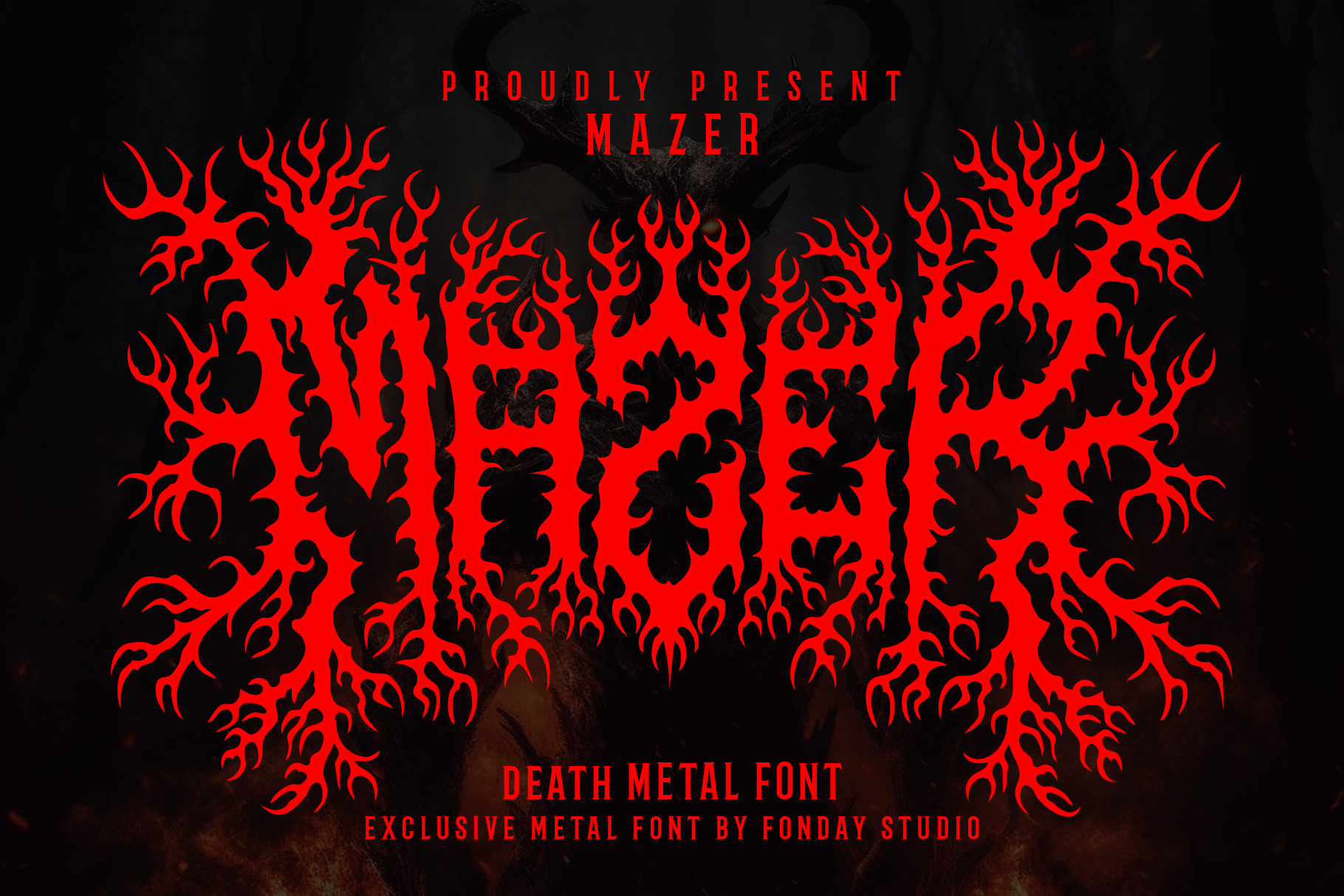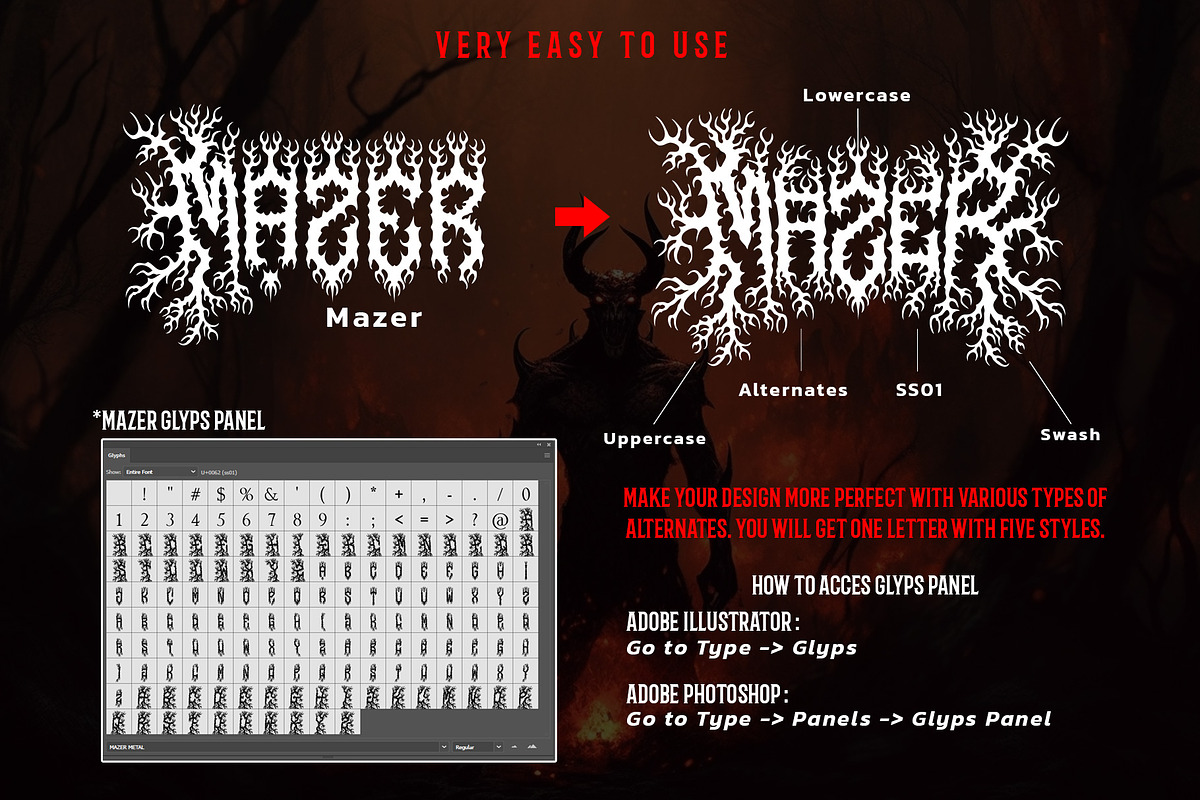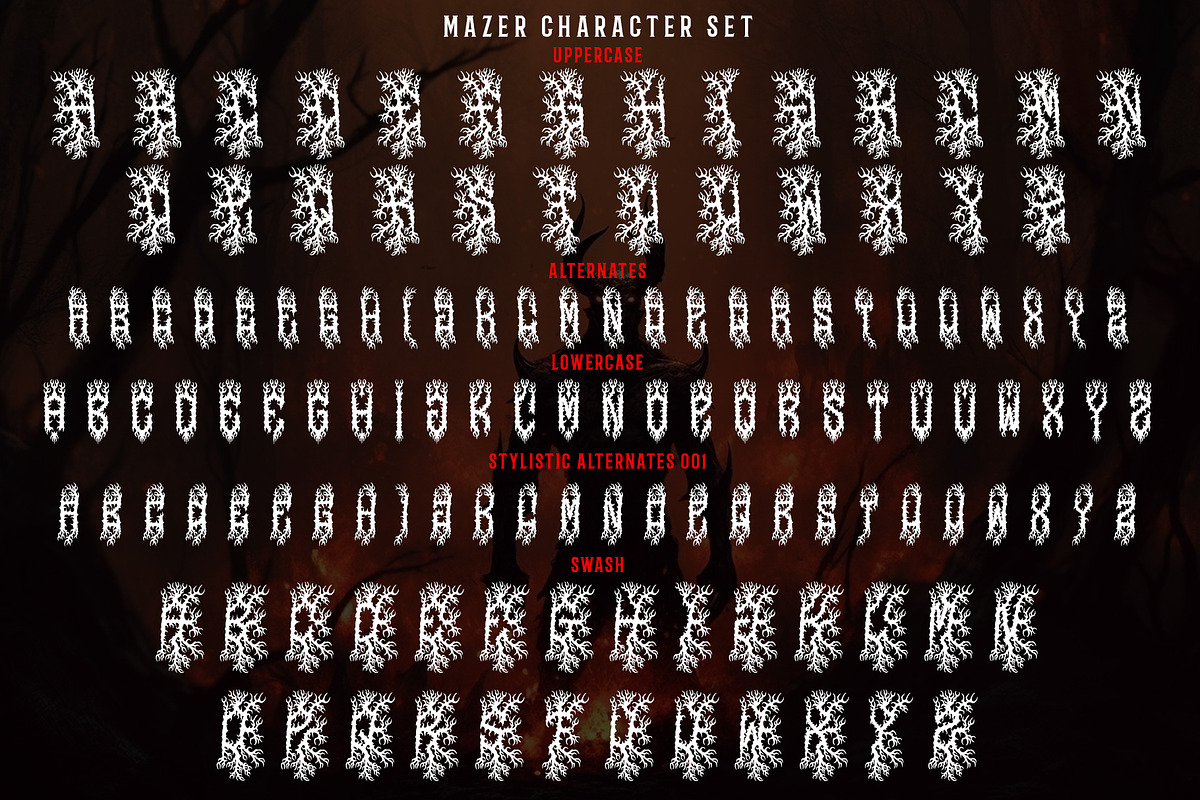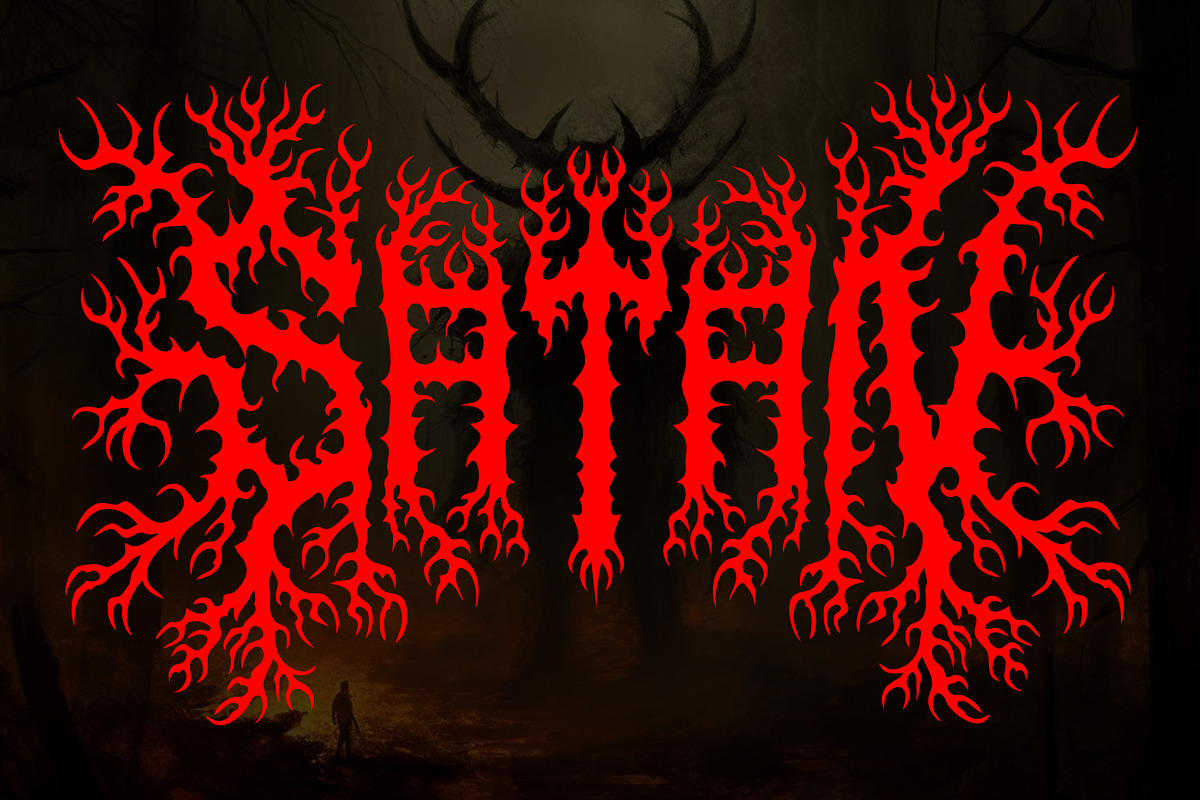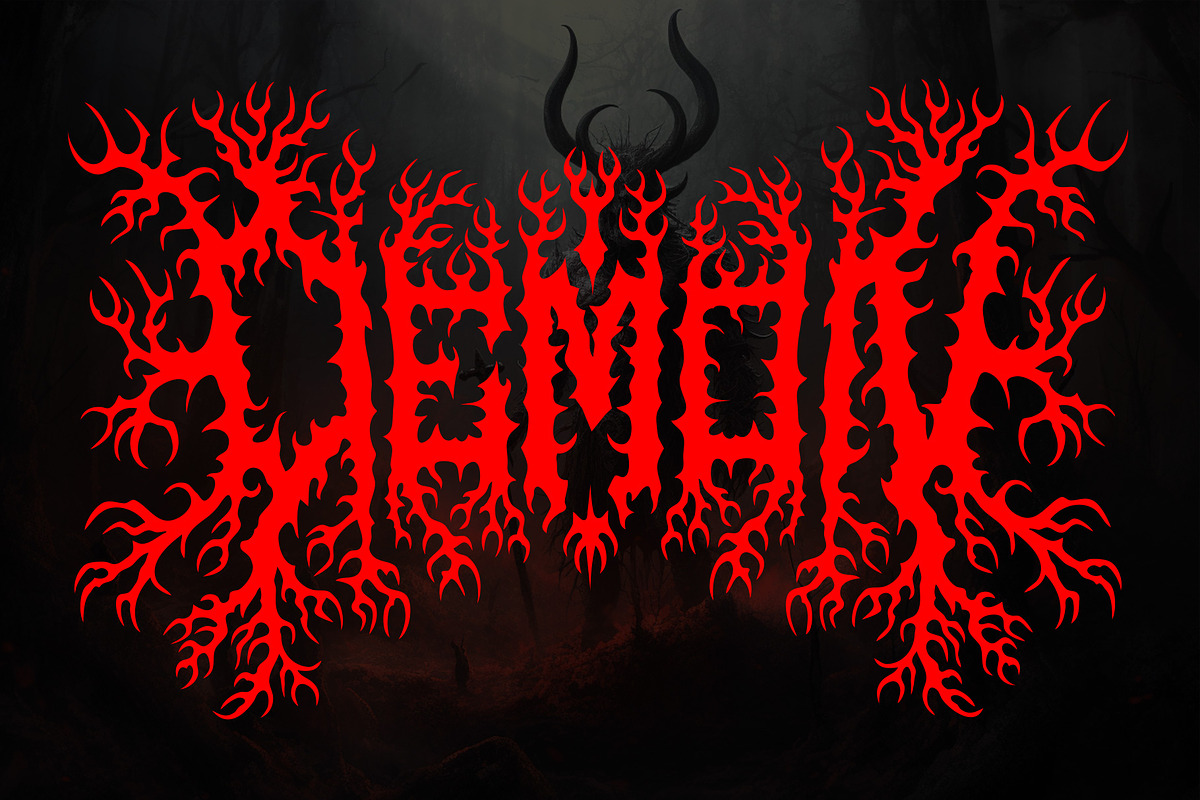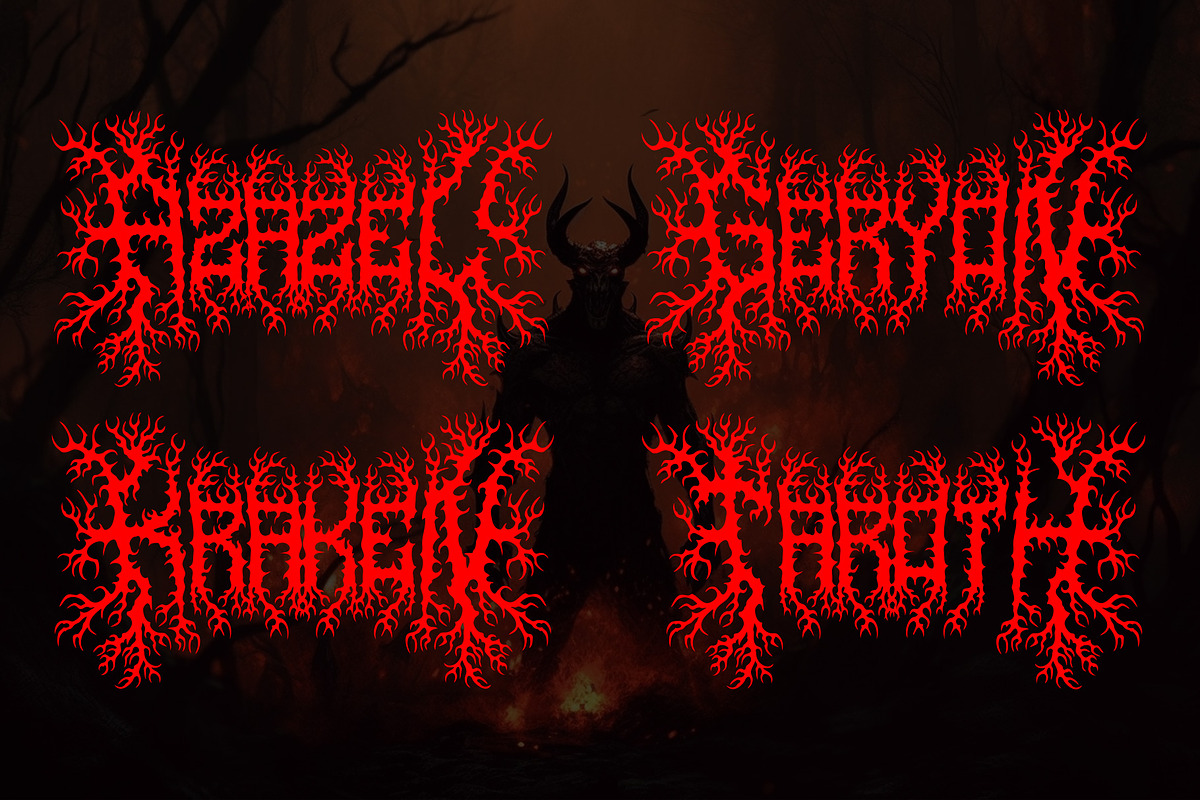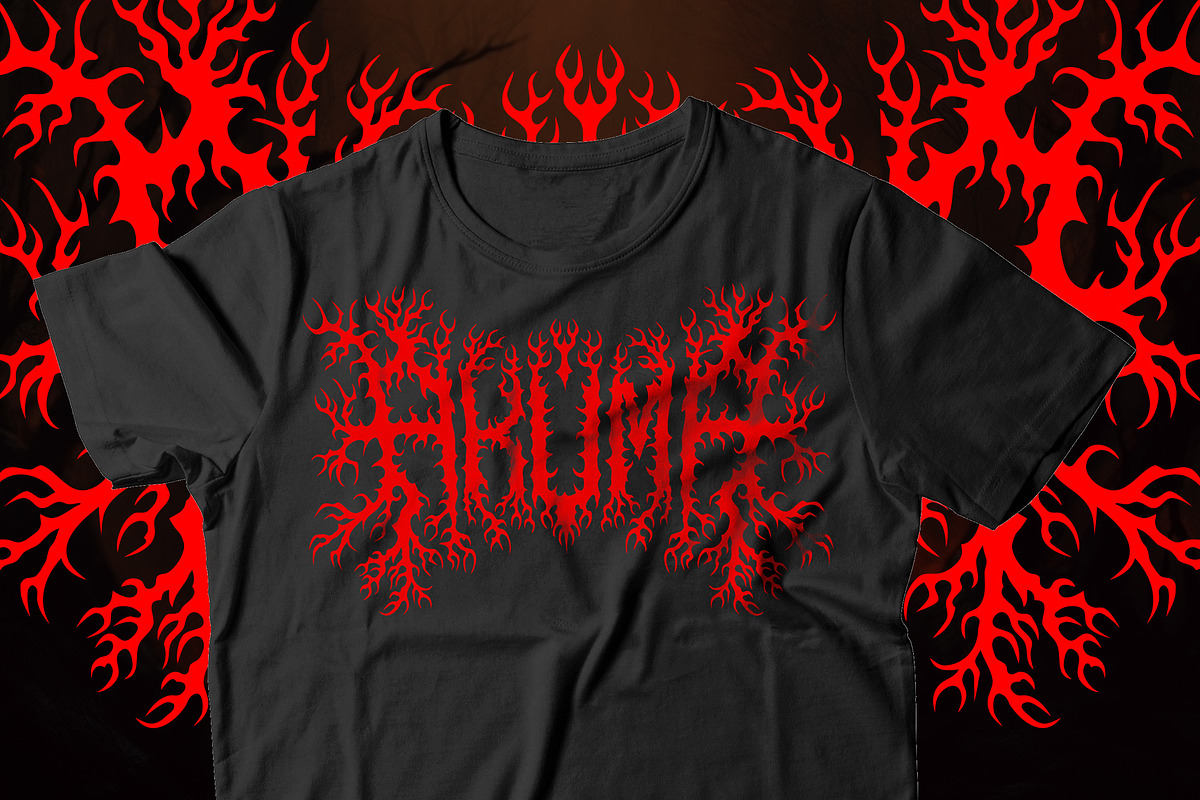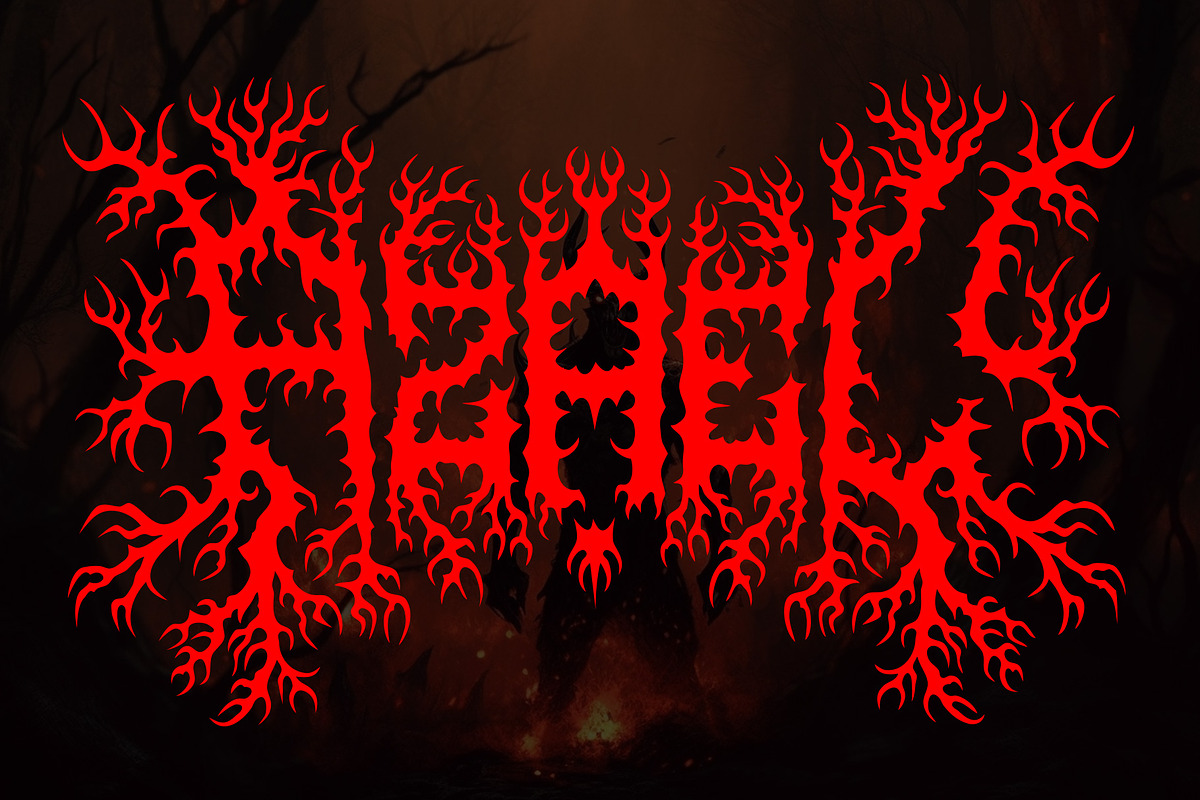
MAZER METAL – Death Metal Font
Introducing MAZER METAL a font that delves deep into the core of metal music, drawing inspiration from the theme of roots. Just as roots anchor a tree, this font grounds your band’s identity in the very essence of the genre.
MAZER: Root boasts bold, earthy letterforms that intertwine with strength and resilience. Like the roots that seek nourishment from the soil, your music finds its sustenance from the depths of passion and emotion. The intricate design reflects the intricate network of roots that connect and empower the metal community.
Embrace the power of MAZER for your band’s logos, album artwork, and promotional materials. With each letter, you symbolize the deep-rooted spirit that drives metal music forward. Let your audience feel the visceral connection to the roots of your sound.
- All Caps Character
- Stylistic Alternate